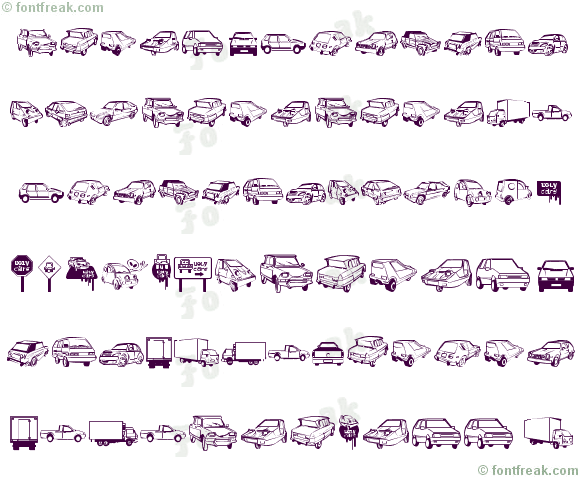
Ugly Cars
Ugly Cars, designed by Galdino Otten, is a unique decorative font that captures the quirky charm of unconventional vehicles. This font is categorized as a display type, making it an excellent choice for projects that require a playful and eye-catching aesthetic. The visual characteristics of the Ugly Cars font are immediately striking, with each letter formed by whimsical, cartoonish car illustrations. The stroke weight is consistent, giving the font a clean yet fun appearance, while the spacing feels balanced, allowing for easy readability.
This font is particularly well-suited for a variety of creative projects. It can be effectively used in promotional materials for car shows, ensuring that the branding reflects the quirky theme of the event. Additionally, Ugly Cars can enhance restaurant menus, especially for diners that want to convey a casual and fun atmosphere. For graphic designers, it serves as a fantastic choice for children's book covers or illustrations, where the playful nature can resonate with young audiences. Another compelling use case is in social media graphics for automotive enthusiasts or quirky blogs that focus on niche car cultures.
The target audience for the Ugly Cars font includes graphic designers looking for distinctive typefaces, small business owners wanting to infuse personality into their branding, and content creators in need of unique visuals to attract attention.
What sets the Ugly Cars font apart is its ability to blend humor with creativity, making it not just a typeface, but a conversation starter. Its freeware license allows for easy access, making the Ugly Cars font free download an attractive option for anyone looking to add a touch of whimsy to their design projects. This font is sure to leave a lasting impression with its distinctive style and character.